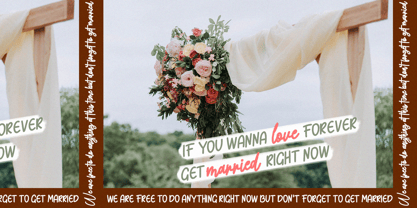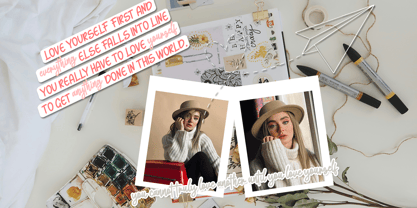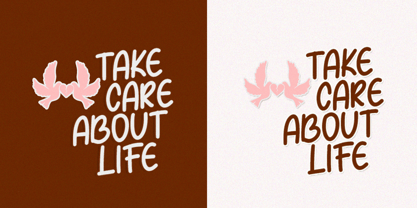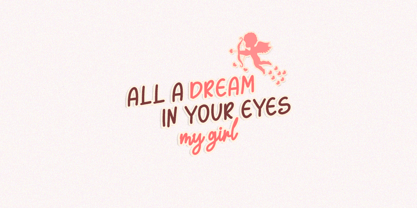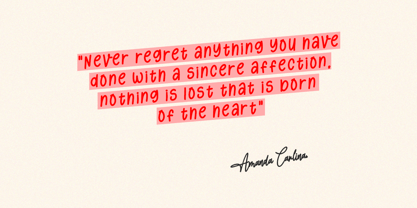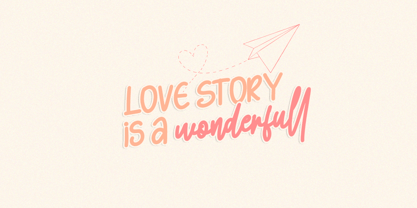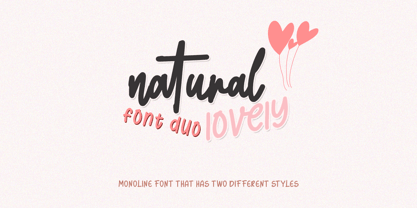
Natural Lovely
by Struggle Studio
Natural Lovely Font Family was designed by Andri Kurniawan and published by Struggle Studio. Natural Lovely contains 2 styles family package options.
Natural Lovely Font Duo is a display font that features a clean, simple typographic design with consistent monoline lines. This font consists of two complementary styles: one style with upright letters (regular) and one with a handwritten style (script), both using uniform line thickness.
Designers: Andri Kurniawan
Publisher: Struggle Studio
Foundry: Struggle Studio
Design Owner: Struggle Studio